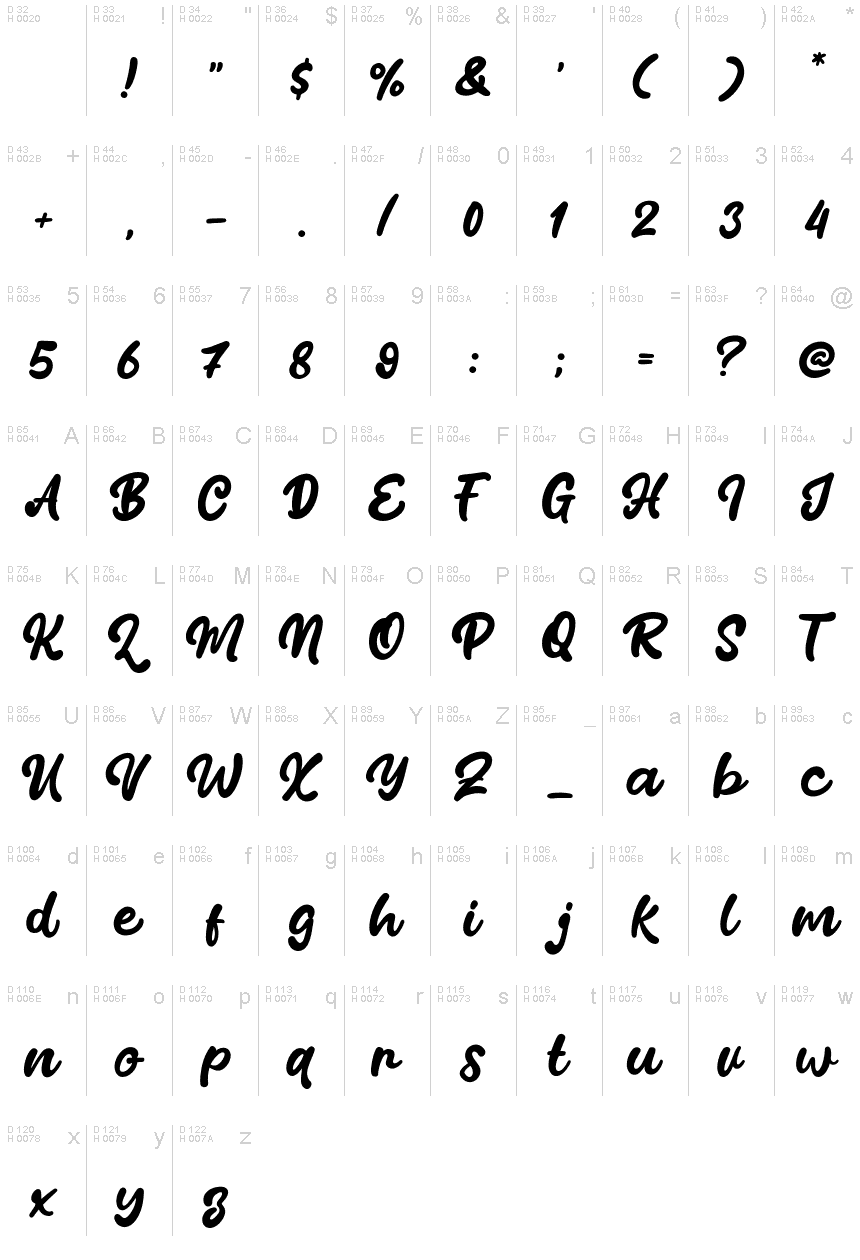
Blang Haloc
Introducing Blang Haloc, a modern handwritten font designed by Khurasan. Perfect for creating eye-catching logos, stylish wedding invitations, and unique social media posts. Bring your creative projects to life with this versatile font!